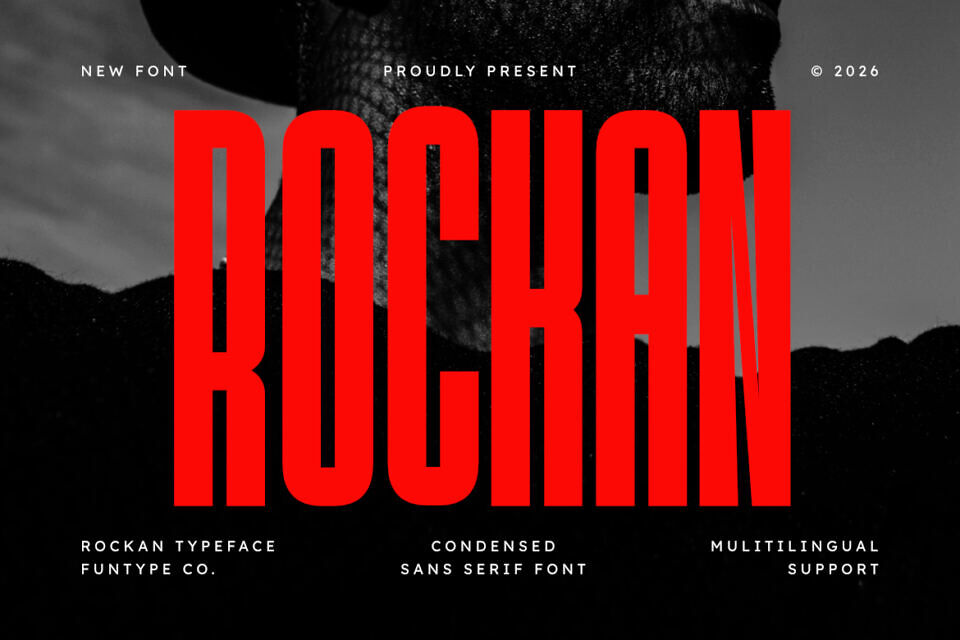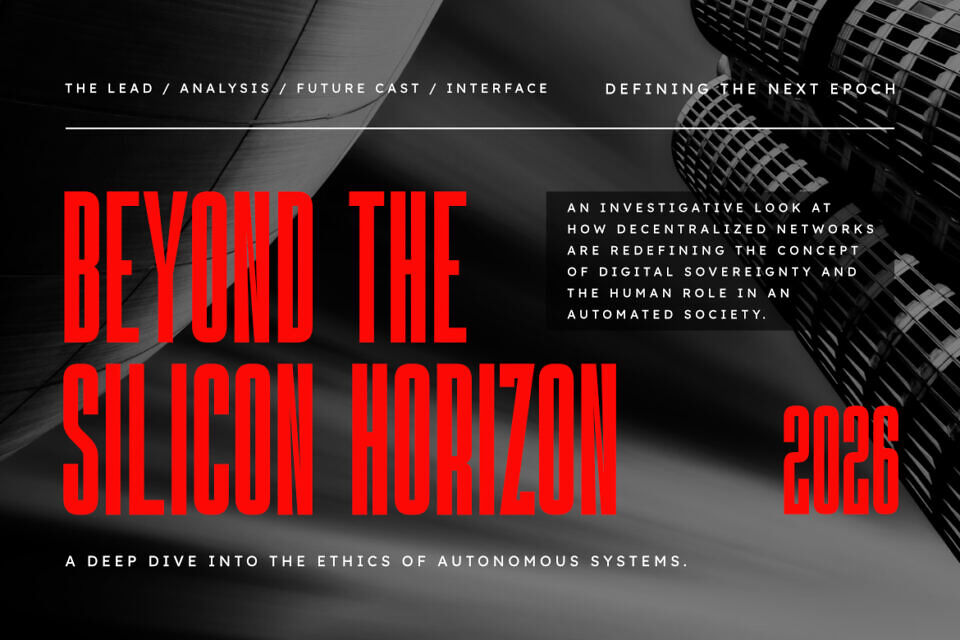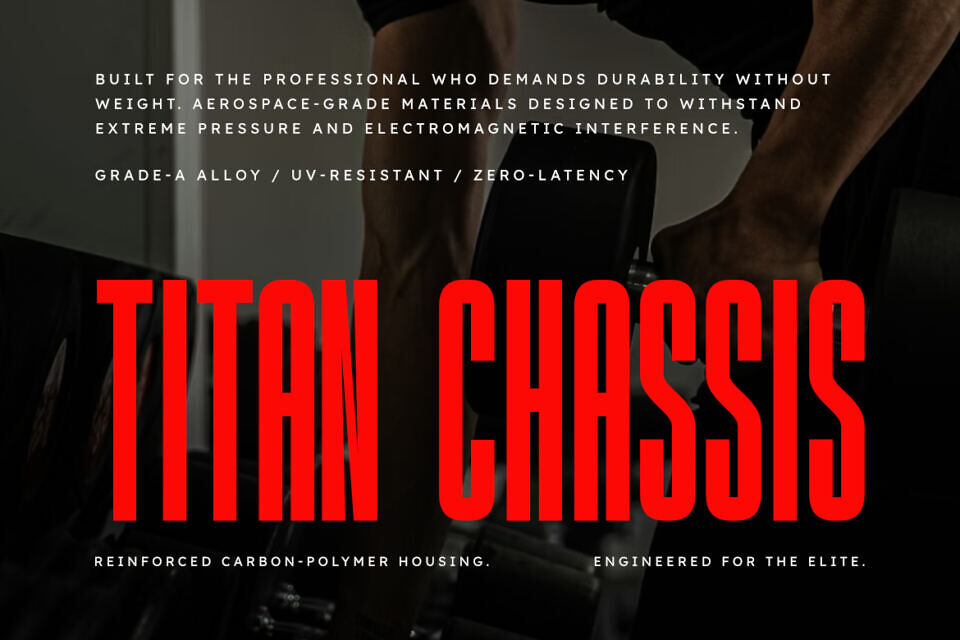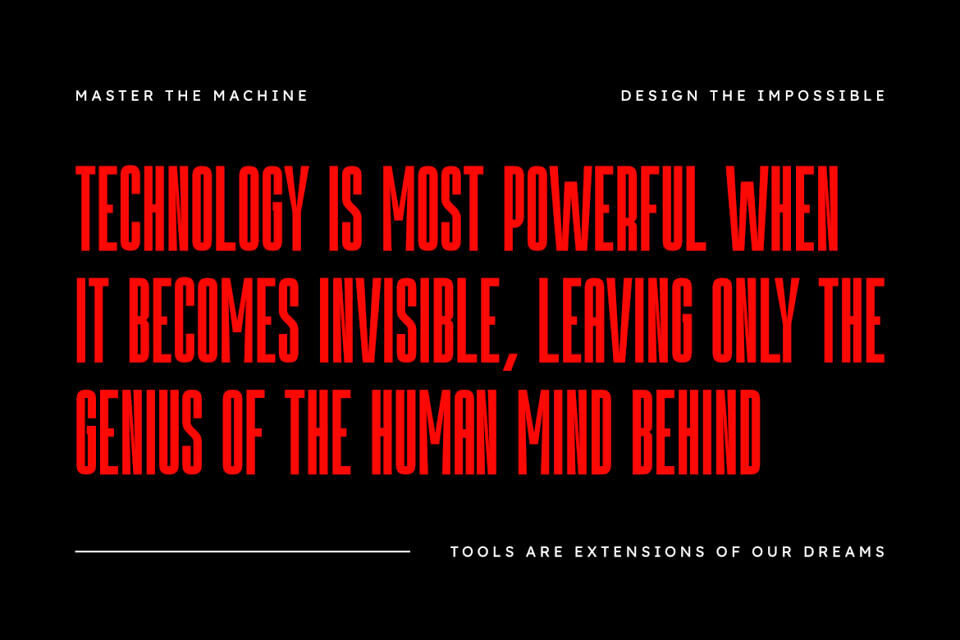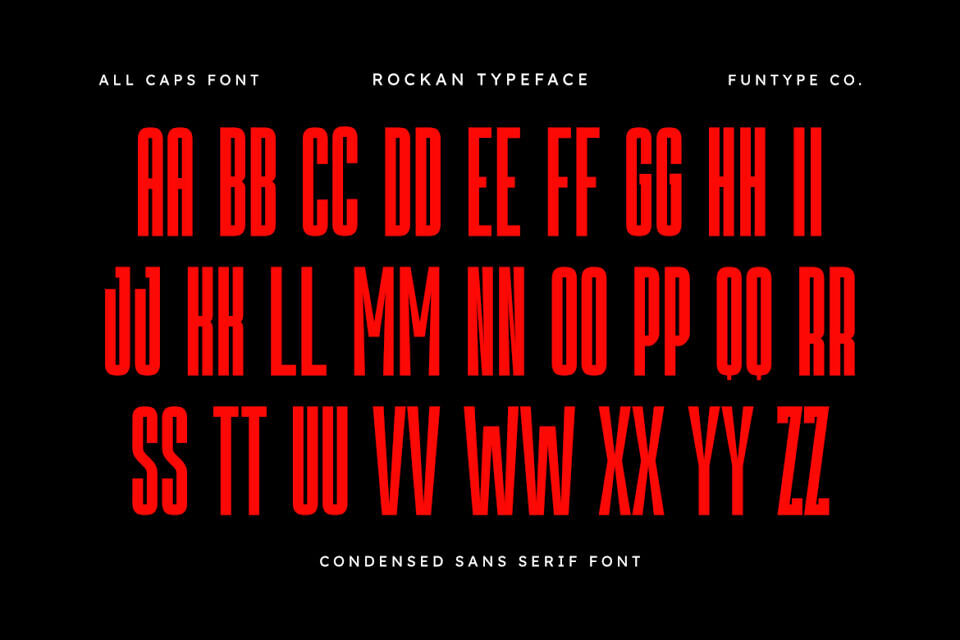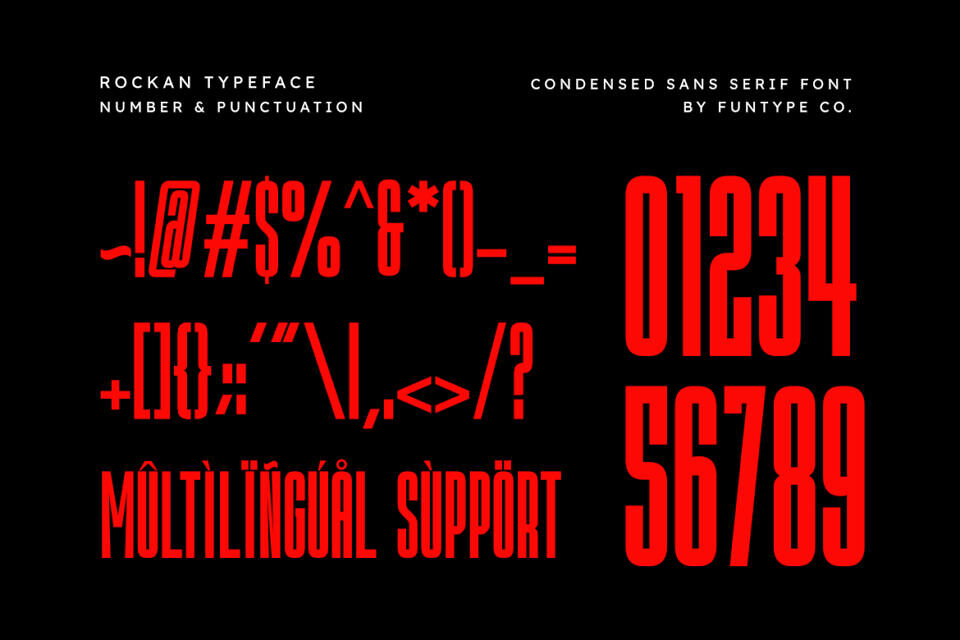
Rockan Font
Rockan is a sophisticated and powerful bold condensed sans serif font, thoughtfully designed to capture the essence of industrial strength and modern storytelling. With its tall, narrow structure and clean geometric lines, Rockan offers a professional aesthetic that brings a touch of commanding presence to any creative project.
This font is the ideal choice for designers looking to add a professional yet high-impact touch to their work. Whether you are crafting a striking movie poster, a modern corporate logo, or bold editorial layouts, Rockan provides a seamless blend of contemporary flair and timeless authority.